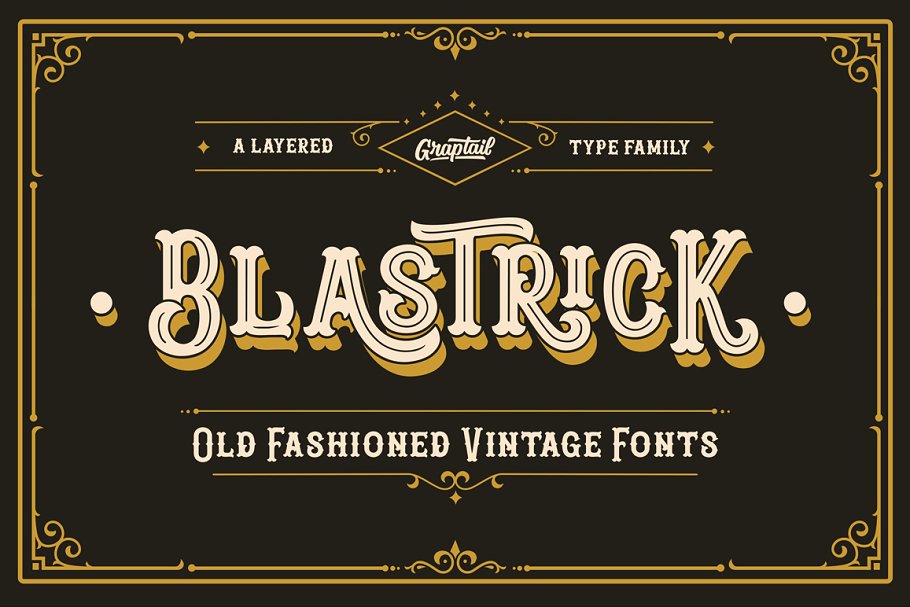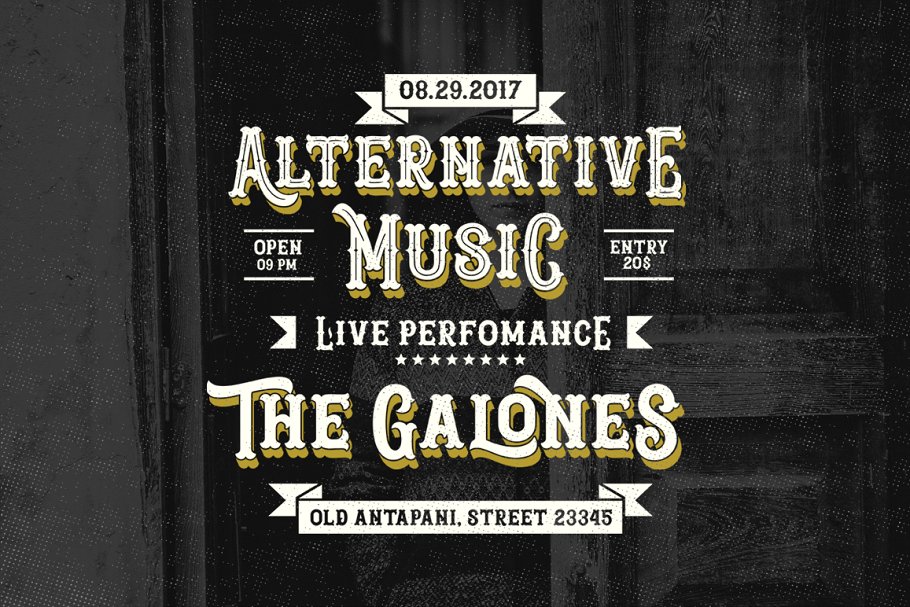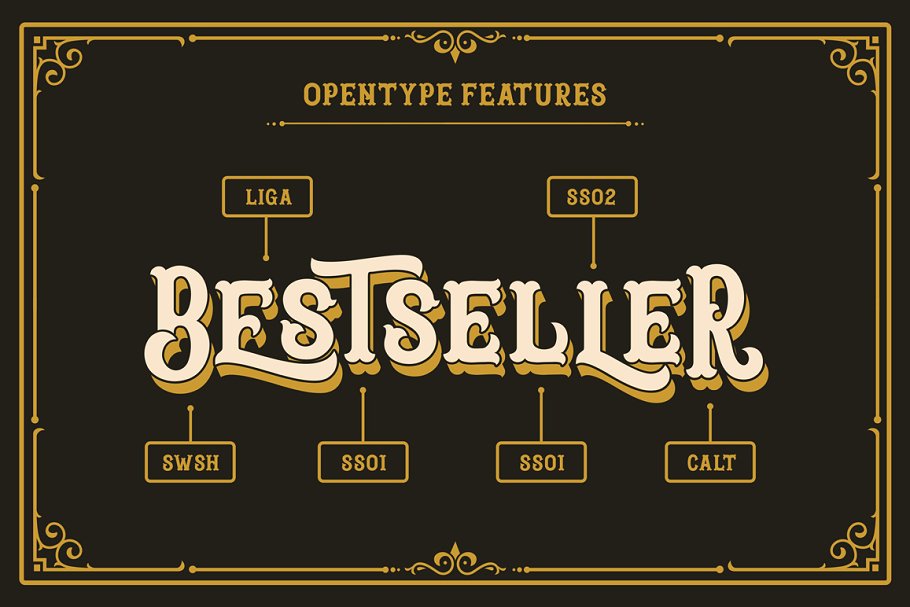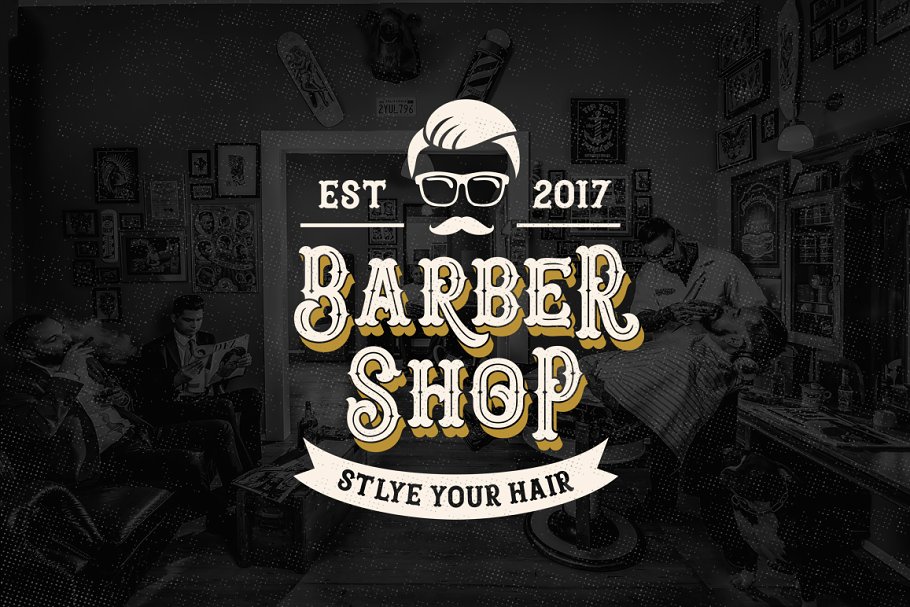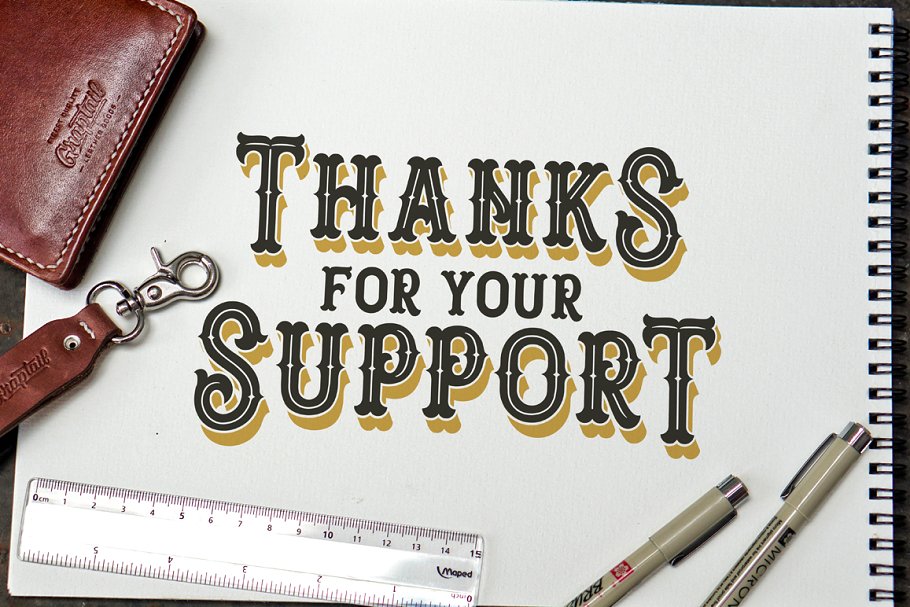
About the Blastrick Font
Blastrick is a vintage layered type system with endless design possibilities using different combinations of fonts and colors, Achieve a realistic 3D effect by adding the shadow font or just use the capital letters of the regular and bold cut for stark artwork, Also supported PUA encoded, Simply copy and paste the alternate characters using the Character Map (Windows), Font Book (Mac) or a software program such as PopChar (for Windows and Mac)